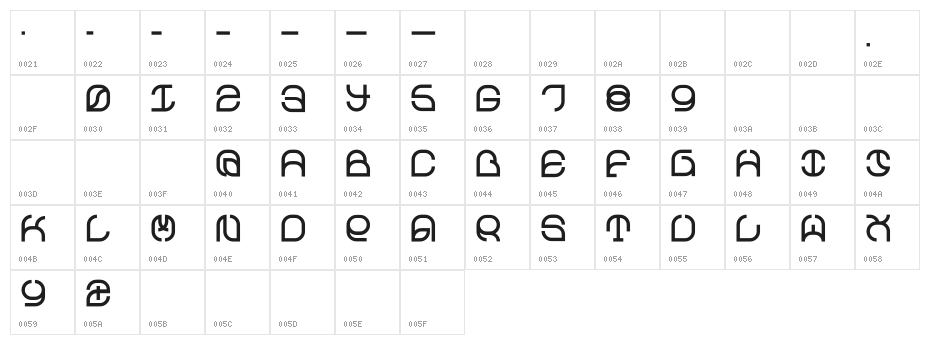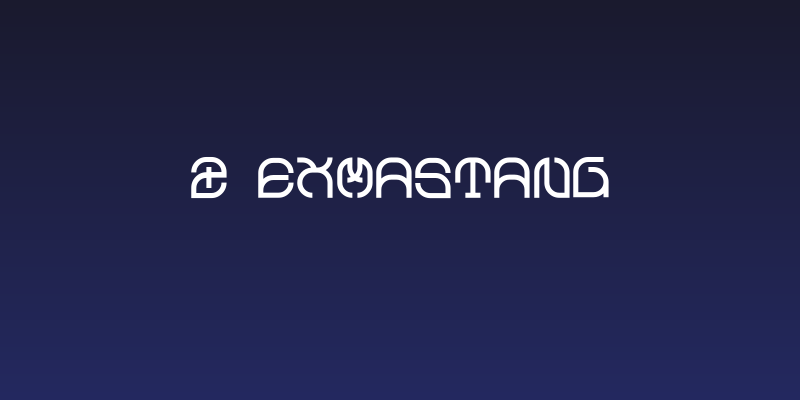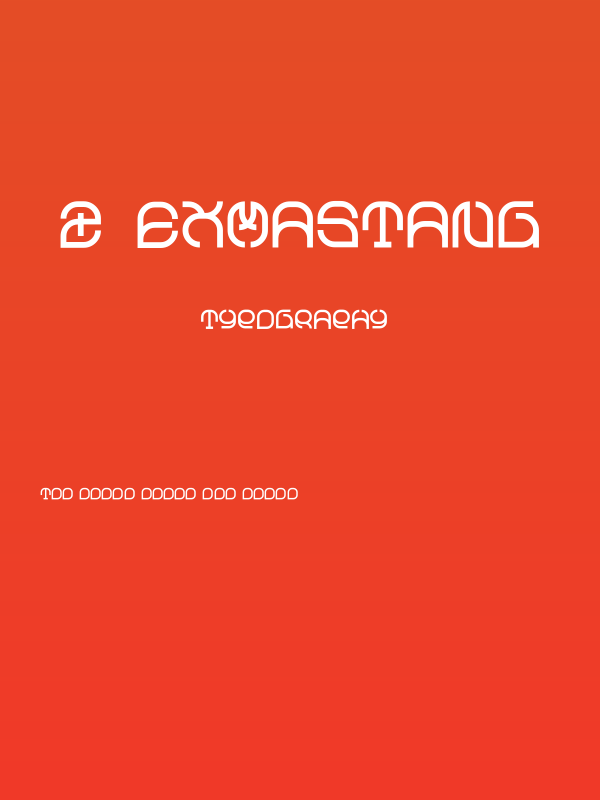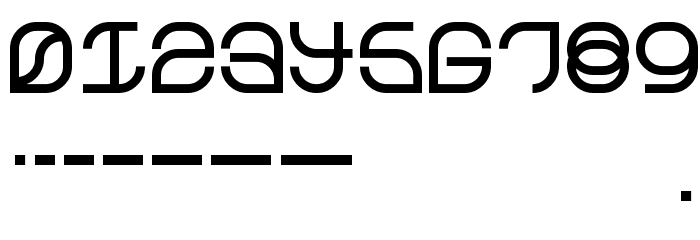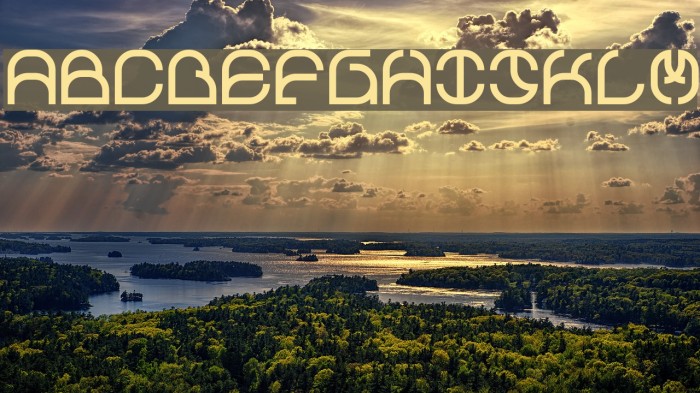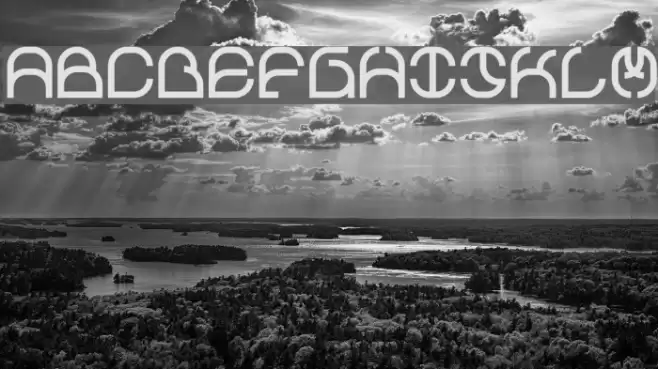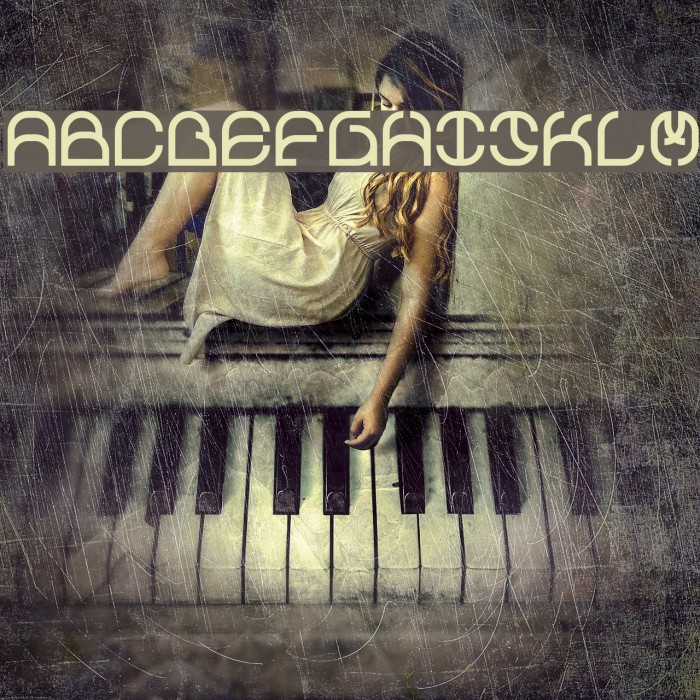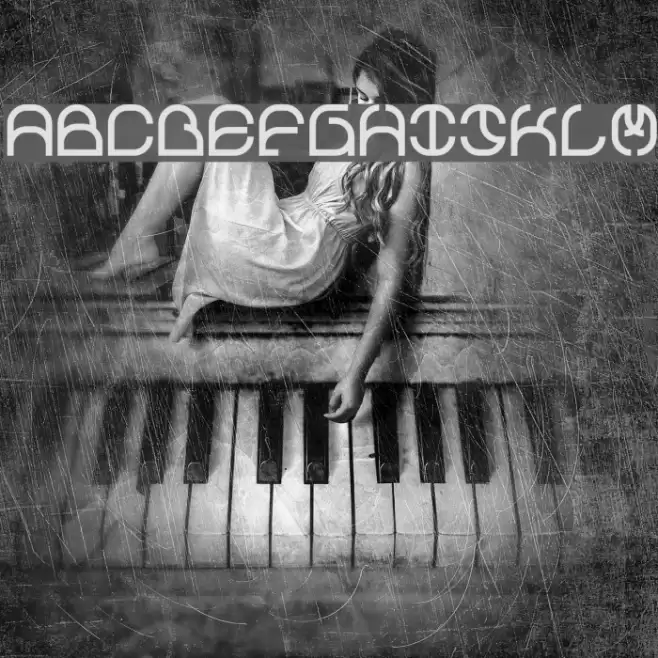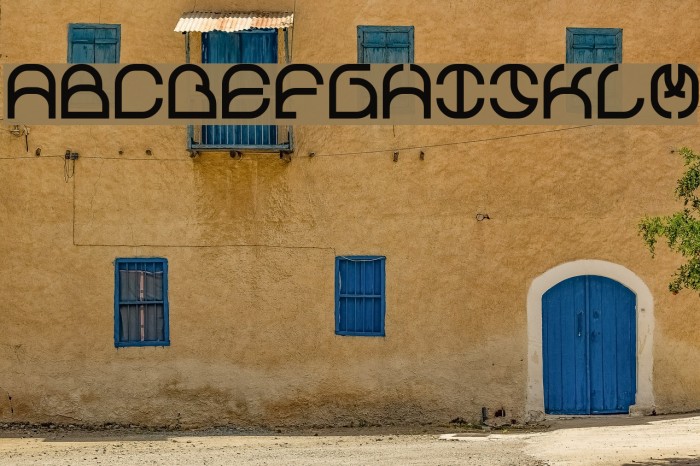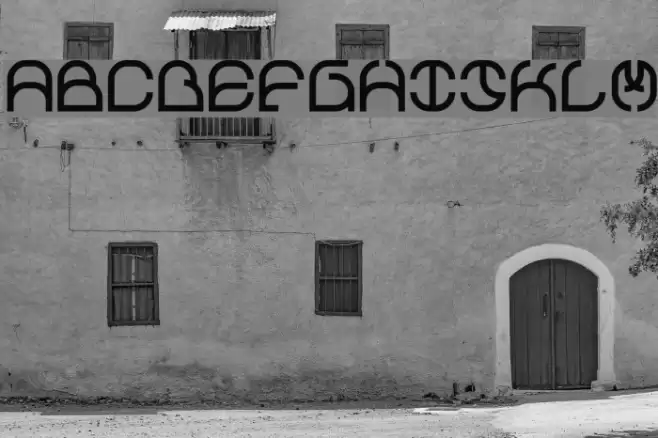
Z_exMastang Font
Z_exMastang Description
This font features a futuristic and geometric design, characterized by its bold, rounded shapes and consistent line thickness. Each character is crafted with a unique blend of curves and straight lines, creating a visually striking and modern appearance. The uppercase letters are particularly distinctive, with a strong emphasis on symmetry and balance. The lowercase letters maintain the same geometric style, ensuring a cohesive look across all text. Numbers and special characters are designed with the same attention to detail, making them easily recognizable while maintaining the overall aesthetic. This font is ideal for projects that require a contemporary and innovative touch, such as technology branding, modern art displays, or sci-fi themed designs.
| Use Case | Logos, Headlines |
| Proposed Projects | Ideal for technology branding, modern art displays, sci-fi themed designs, and innovative marketing materials. |